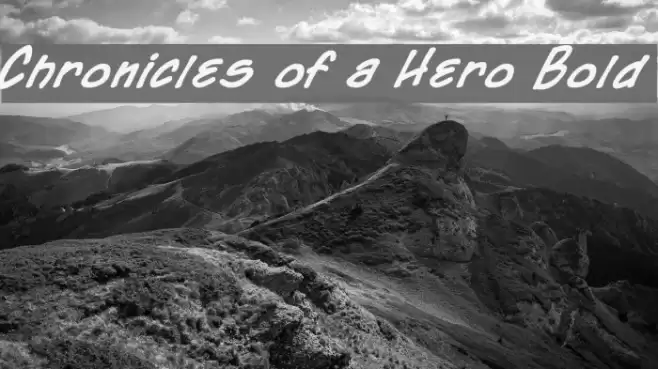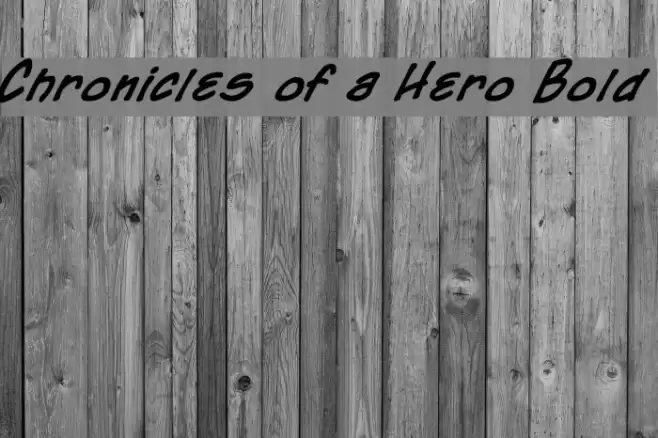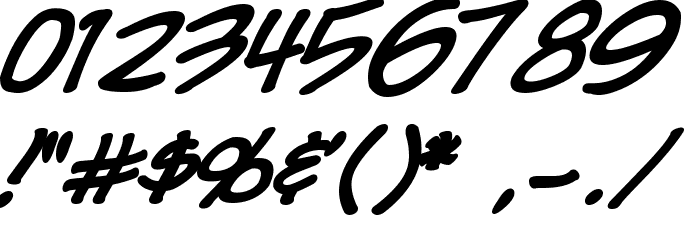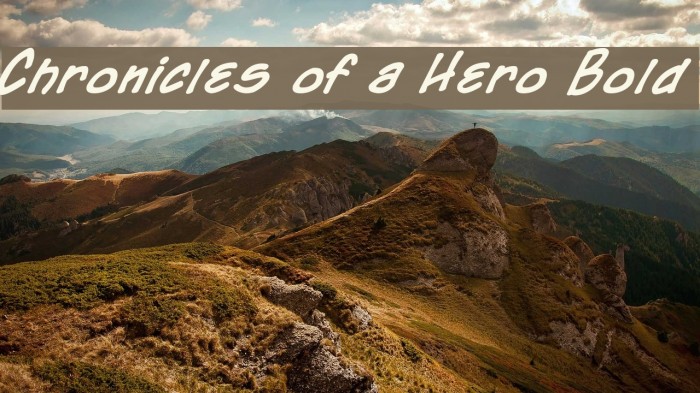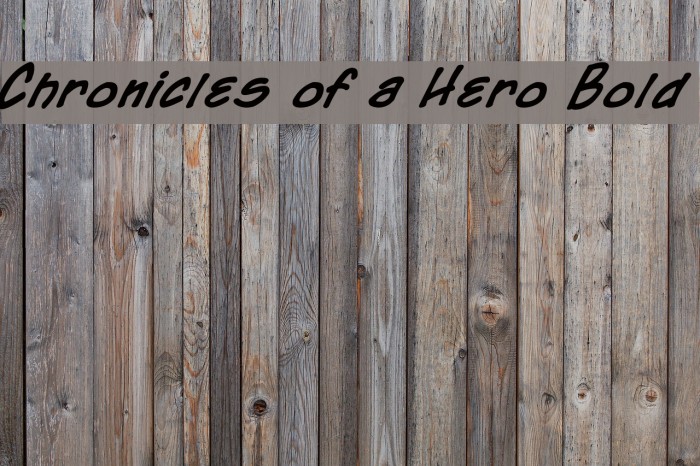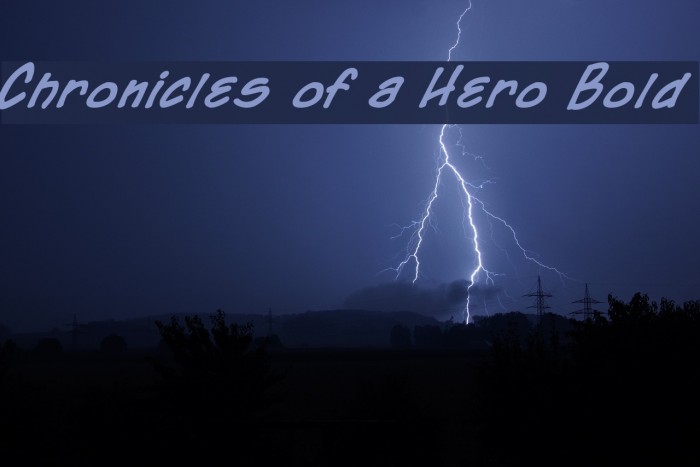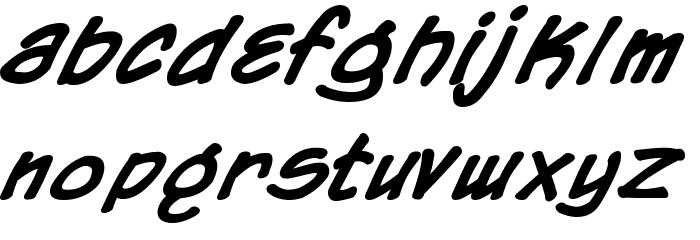
Chronicles of a Hero Bold Font
Chronicles of a Hero Bold Description
This font features a bold, dynamic script style with a strong presence. The characters are slightly slanted, giving a sense of motion and energy. The strokes are thick and consistent, providing a robust and impactful appearance. The uppercase letters are tall and commanding, while the lowercase letters maintain a cohesive flow. The numbers and special characters are designed to match the boldness and style of the alphabet, ensuring uniformity across all elements. This font is ideal for projects that require a bold statement, combining readability with a touch of flair.
A bold, dynamic script font with a strong, energetic presence from Comic fonts.
- Proposed Projects: Ideal for branding, headlines, posters, and any design that requires a bold, impactful statement.